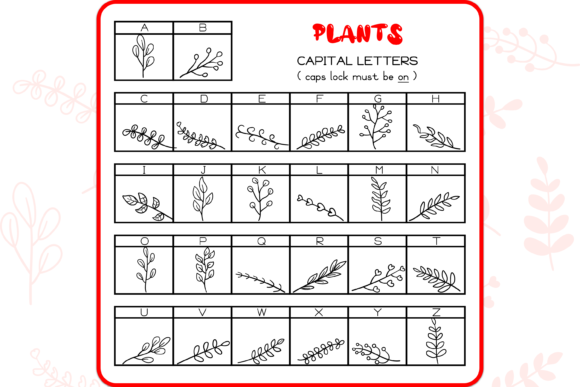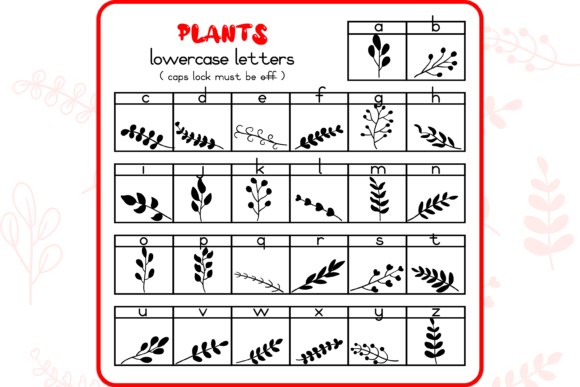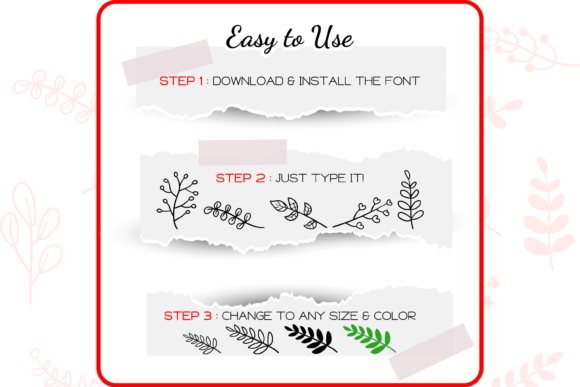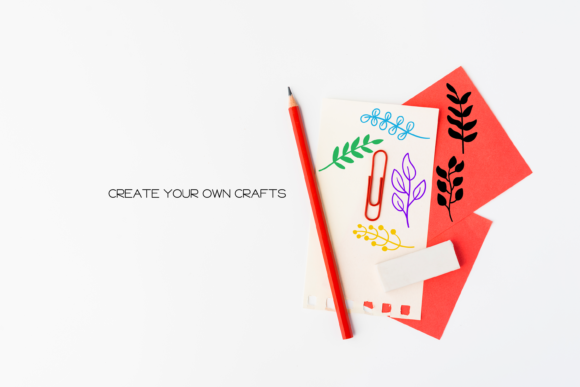
About Plants Dingbats Font
Absolutely! “Plants” is a delightful dingbats font that brings the beauty of nature to your designs. With its collection of hand-drawn plant and leaf doodles, this font offers versatile options for adding a touch of greenery to your projects. Here are some creative ideas for incorporating the “Plants” font into your designs:
1. Borders and Dividers: Use the plant and leaf doodles as decorative borders or dividers to create a natural frame around your content. These charming elements will add a fresh and organic feel to your designs.
2. Frames and Overlays: Incorporate the plant and leaf doodles as frames or overlays around images or text to give them a botanical touch. Whether you’re designing posters, invitations, or social media graphics, these natural frames will make your content stand out.
3. Background Elements: Create captivating backgrounds or patterns using the plant and leaf doodles. By repeating and arranging them, you can evoke the lushness of a garden or the tranquility of a forest, giving your designs a natural and inviting atmosphere.
4. Botanical Illustrations: If you’re working on projects related to botany, gardening, or eco-friendly initiatives, the “Plants” font is perfect for adding visual interest. Use the plant and leaf doodles to enhance illustrations, infographics, or educational materials.
5. Emphasize Text: Highlight important text or headings by incorporating the plant and leaf doodles alongside them. This technique can add a touch of natural elegance to your typography and make your message visually captivating.
6. Stickers and Labels: Transform the plant and leaf doodles into stickers or labels for packaging, product design, or personal crafts. The botanical elements will lend a fresh and earthy charm to your creations.
7. Wedding or Event Stationery: If you’re planning a wedding or special event with a botanical or garden theme, use the “Plants” font to design unique and charming stationery. The plant and leaf doodles can be incorporated as decorative elements or integrated into the typography itself.
8. DIY Projects: If you enjoy DIY projects, the “Plants” font can be a great resource. Use the plant and leaf doodles to create custom art prints, greeting cards, or personalized gifts. The natural elements will add a handmade and heartfelt touch to your creations.
Remember to explore different combinations, sizes, and colors of the plant and leaf doodles to create unique and eye-catching designs. The hand-drawn style of “Plants” adds a whimsical and artistic touch to your creations, making them truly outstanding.
In summary, “Plants” is a delightful dingbats font that allows you to infuse your designs with the beauty and charm of plants and leaves. Whether you’re using the plant and leaf doodles as borders, dividers, frames, or exploring other creative possibilities, they are sure to add a natural and captivating touch. Let your creativity bloom with the hand-drawn doodles from the “Plants” font!